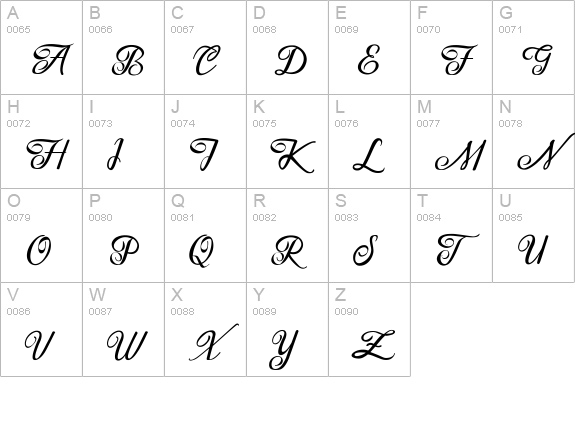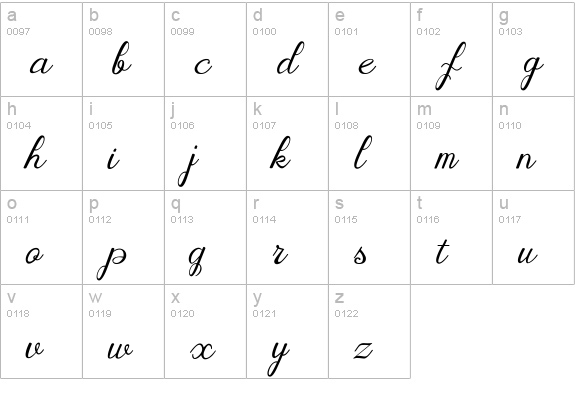
Brittania Script Ellegant is a stunning and sophisticated font that exudes elegance and charm. Its flowing script style brings a touch of refinement to any project, making it perfect for invitations, wedding stationery, branding, and more. The intricate curves and loops of this font add a luxurious touch to your designs, while maintaining a sense of modernity.